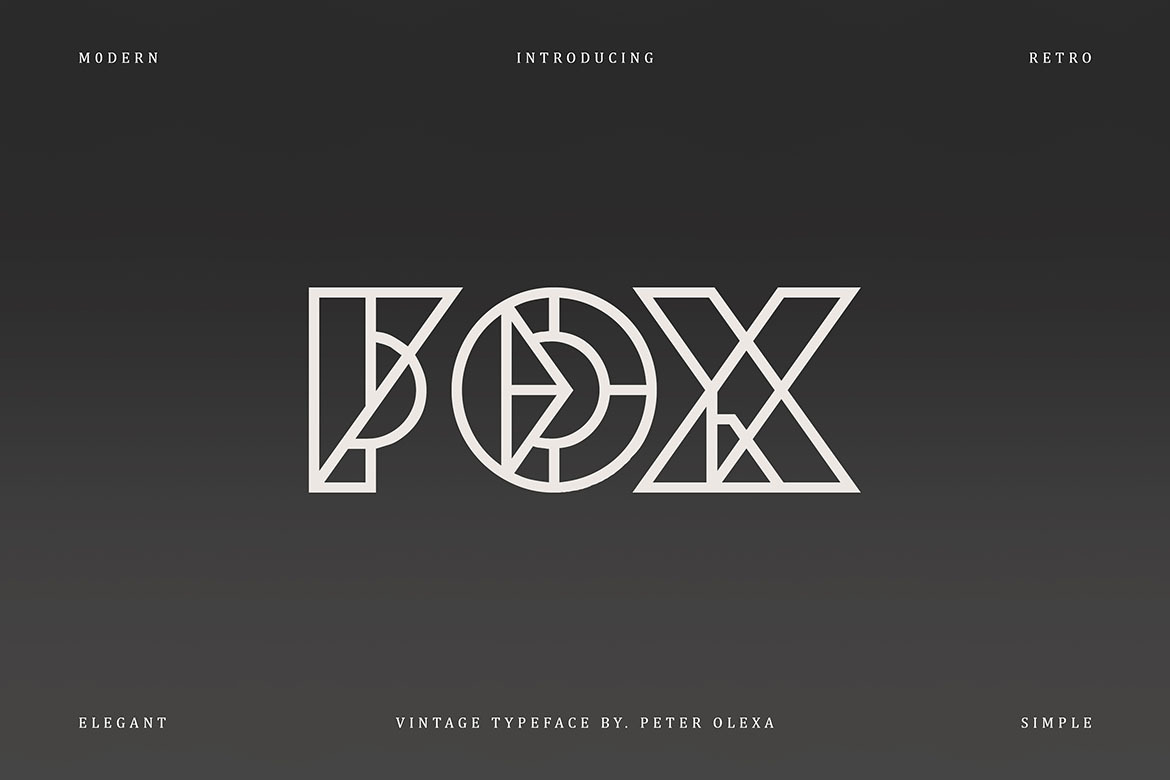
Fox Geometric Font
Creative, modern, sharp, unique & decorative font for your new projects. With cool linear or geometric style. Great for neon or futuristic projects.
- Great for modern & futuristic branding projects